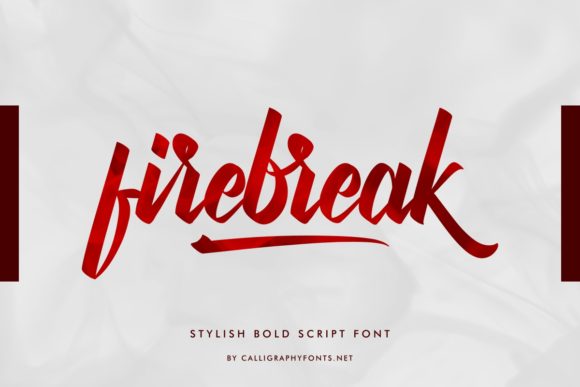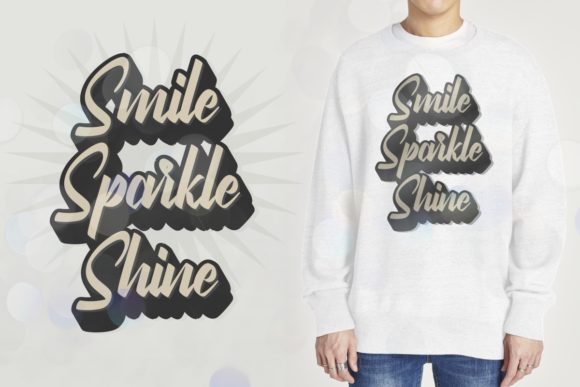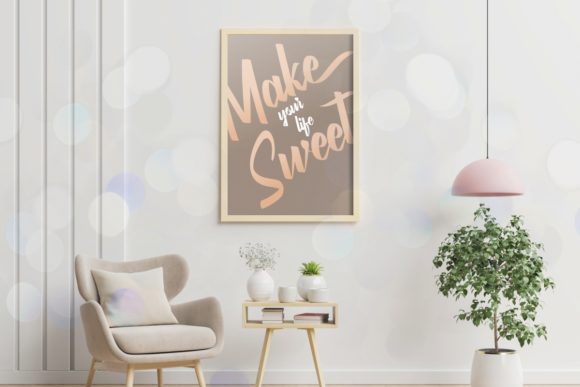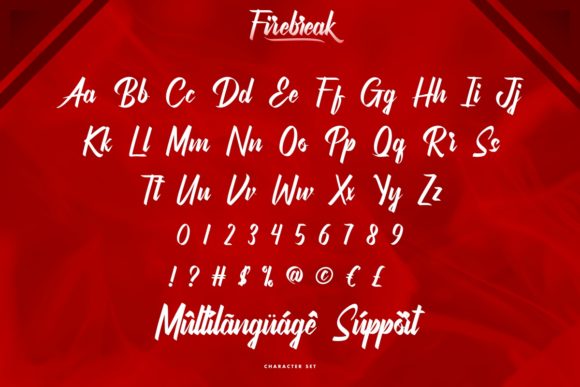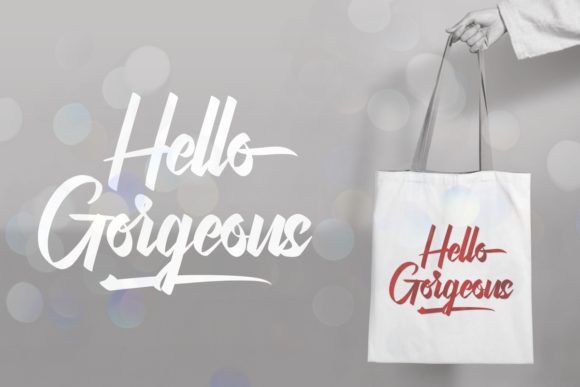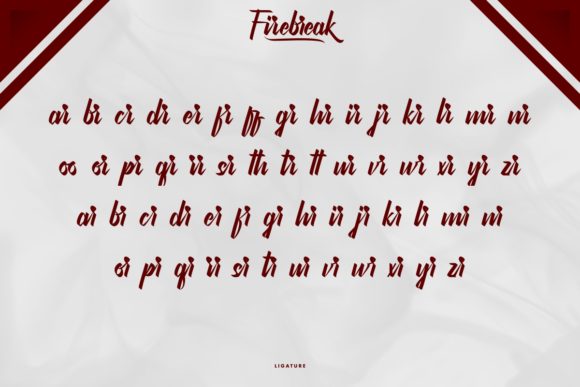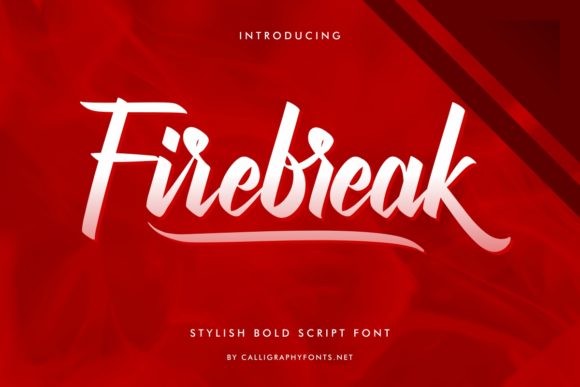
Introducing Firebreak Font: Elevate Your Designs with a Stylish and Confident Touch
Are you tired of using the same old fonts for your design projects? Do you want to add a touch of nostalgia and personality to your headlines and logotypes? Look no further than Firebreak Font, a gorgeous and bold handwritten font that’s perfect for designers and crafters looking to elevate their work.
What Makes Firebreak Font Special?
Firebreak Font is a stunning example of a well-crafted handwritten font. Its bold and dynamic style reads as strong, confident, and eye-catching, making it perfect for a wide range of design projects. Whether you’re working on a logo, headline, or any other type of design that requires a bit of personality, Firebreak Font is sure to impress.
One of the standout features of Firebreak Font is its nostalgic character. This font has a classic feel that’s reminiscent of traditional handwritten scripts, but with a modern twist that makes it perfect for contemporary designs. Whether you’re working on a retro-inspired project or simply want to add a bit of vintage flair to your work, Firebreak Font is an excellent choice.
Another great feature of Firebreak Font is that it’s PUA (Private Use Area) encoded. This means that you can access all of the glyphs and swashes with ease, giving you even more flexibility and creative control over your designs. With PUA encoding, you can easily insert special characters, ligatures, and other unique elements that will take your designs to the next level.
Firebreak Font is perfect for designers and crafters who want to add a bit of personality and style to their work. Whether you’re working on a commercial project or a personal craft project, this font is sure to inspire. Its bold and confident style makes it perfect for a wide range of applications, from logos and headlines to packaging and branding.
Tips for Using Firebreak Font
Here are a few tips for using Firebreak Font in your designs:
- Use Firebreak Font as a headline or title font to add a bit of drama and personality to your designs.
- Pair Firebreak Font with a simpler font for body text to create a striking contrast.
- Take advantage of the PUA encoding to add special characters and swashes to your designs.
In conclusion, Firebreak Font is a stunning and versatile handwritten font that’s perfect for designers and crafters looking to elevate their work. Its bold and confident style, nostalgic character, and PUA encoding make it an excellent choice for a wide range of design projects. Whether you’re working on a commercial project or a personal craft project, Firebreak Font is sure to inspire. So why wait? Download Firebreak Font today and start adding a stylish and confident touch to your designs!
Key Features of Firebreak Font
- Bold and dynamic handwritten font
- Nostalgic character with a modern twist
- Perfect for headlines, logotypes, and other design projects
- Great for designers and crafters looking to add personality to their work